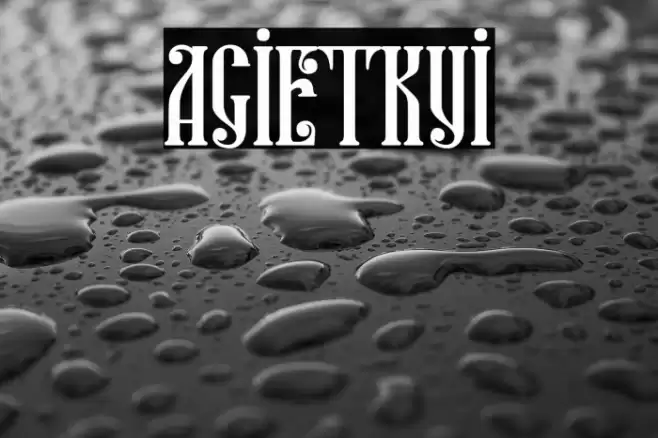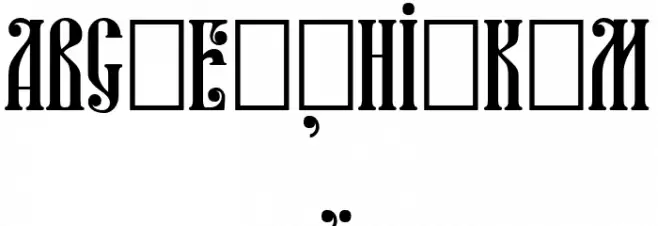
AncientKyiv Font
AncientKyiv Description
This font exudes a historical and ornate style, reminiscent of ancient scripts with a modern twist. The characters are tall and narrow, featuring intricate decorative elements such as swirls and curls, particularly on the serifs and terminals. The uppercase letters are highly stylized, with a consistent vertical emphasis and elaborate detailing that adds a sense of grandeur. The lowercase letters maintain the decorative theme, though they are slightly more subdued in their ornamentation. The numbers and special characters follow the same intricate design, ensuring a cohesive look across all glyphs. This font is perfect for projects that require a touch of elegance and historical flair.
An ornate, historical font with intricate decorative elements and a vertical emphasis from Uncategorized fonts.
- Proposed Projects: Ideal for historical-themed designs, invitations, posters, and branding that requires a touch of elegance and sophistication.
- Character Spacing: Tight
- Overall Style: Vintage
- Use Case: Headlines, Logos, Decorative text